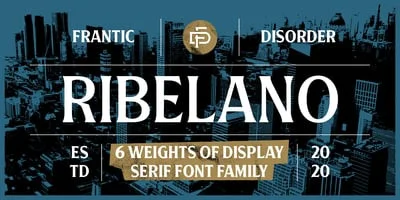
Ribelano Font
The Ribelano Font excels in various design applications including rebellious youth branding, alternative music marketing, underground culture communications, independent artist identities, counterculture movement materials, activist organization signage, revolutionary campaign promotions, alternative lifestyle brands, creative rebellion projects, and bold social change initiatives that demand rebellious spirit and alternative sophistication.
What makes the Ribelano Font exciting is its powerful embodiment of rebellious energy and alternative culture through letterforms that capture the essence of social revolution and the fearless spirit of independent thinking. This typeface demonstrates exceptional character through carefully crafted letters that suggest the bold defiance of conventional norms, the creative energy of underground movements, and the passionate determination that drives meaningful social change. The font's rebellious personality makes it perfect for activist organizations and alternative brands seeking to communicate revolutionary spirit, independent thinking, and the kind of fearless authenticity that challenges established systems through typography that literally rebels against conventional design.
The Ribelano Font family typically includes bold weight variations that enhance the rebellious aesthetic, featuring alternative styling options and extended character sets optimized for counterculture communications and activist applications. These family options often include revolution-inspired alternates, protest symbols, and underground decorative elements that provide designers with comprehensive tools for creating authentically rebellious typography that celebrates alternative culture while maintaining contemporary design appeal and movement credibility.
Activist professionals and alternative culture organizations consistently choose Ribelano Font for projects requiring typography that communicates rebellious authenticity and revolutionary energy. This typeface delivers exceptional performance in activist marketing, alternative branding, and counterculture communications where establishing credibility and inspiring social change is essential for movement success. The font's rebellious character makes it particularly effective for music and protest applications. Download Ribelano Font today to access this revolutionary typeface that transforms alternative communications with its rebellious energy and underground sophistication, creating compelling movement experiences that honor the authentic spirit of social rebellion while maintaining the fearless determination that drives genuine revolutionary change and alternative cultural expression.